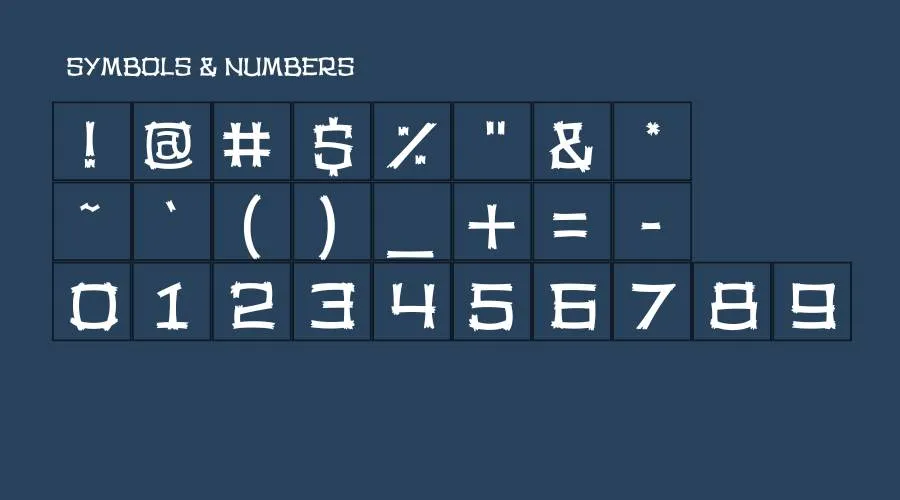
Tiki Hut Font
About Tiki Hut Font
Now, going to present to you a very elegant and eye-catching texture known as the name of Tiki Hut Font. This font was invented by Reg Silva Art with unique and stylish characters. It looks like the fancy texture family and is available in a free version for both systems Windows and Mac.
You can utilize this stunning typeface with sketchy font and create a new shape for your projects. The Tiki Hut typeface has an online generator tool, where you can change all your normal type of alphabet sets into stylish and modern shapes.
After it was published in the font world, it gained popularity in a very short time. Because it has a modern and trendy texture that is suitable for CSS and adobe photoshops.
The subfamily of this texture is regular and contains various types of styles and weights such as Tiki Hut Heavy, Tiki Hut Ultra, Tiki Hut bold, Tiki Hut Hair Italic, Tiki Hut Bold Italic, Tiki Hut ExtraBold Italic, Tiki Hut Heavy Italic, and many more.
The Tiki Hut Font has a bold and modern texture look, that is perfect for any type of design, and method. You must have to utilize it on your project because it is suitable for headings, titles, digital media, posters, banners, and many other procedures.
This unique typeface got a huge success because it fulfilled the demands of the visitors. You may also utilize this font for making advertisements, Presentations, and pictures. Many developers utilize this font for retargeting ads and blog headings.
Name Tiki Hut Font
Designer Reg Silva Art
Style Fancy
What type of Font is Tiki Hut Font?
This amazing typeface looks like the fancy texture family and is available in a free version for both systems Windows and Mac.
Who is the designer of Tiki Hut Font?
Tiki Hut Font was invented by Reg Silva Art with unique and stylish characters.